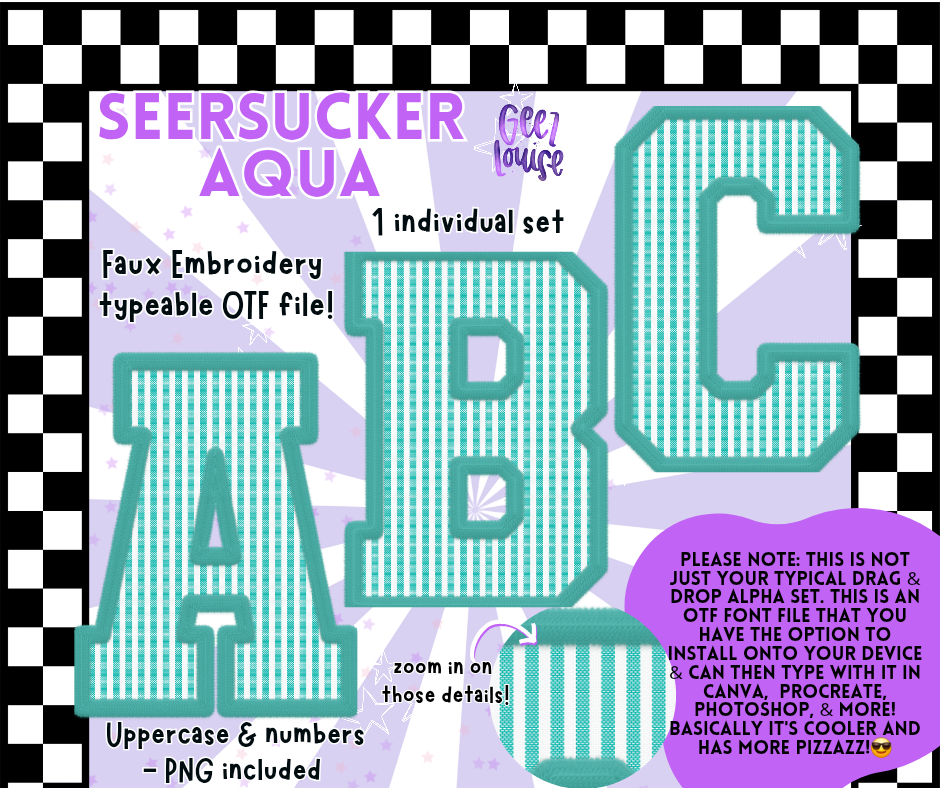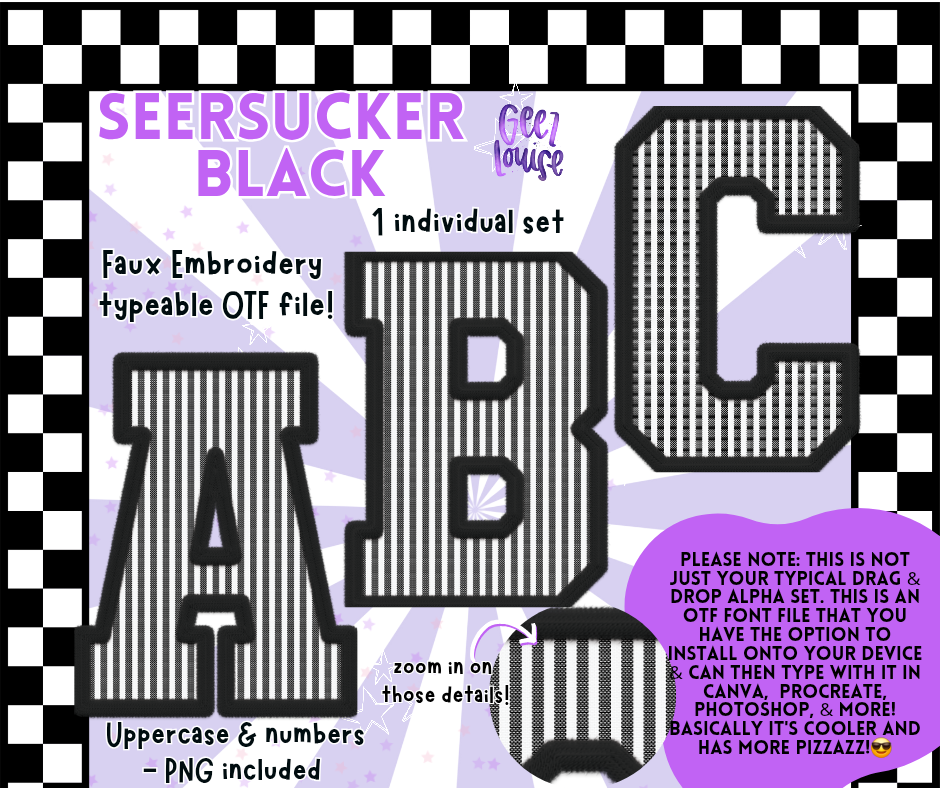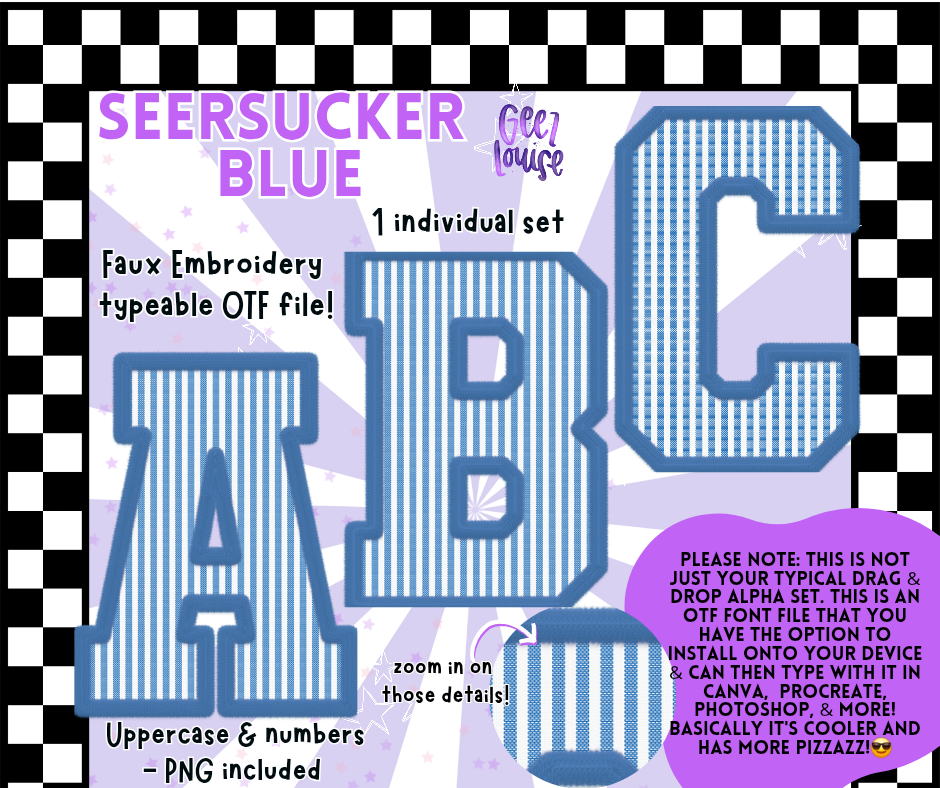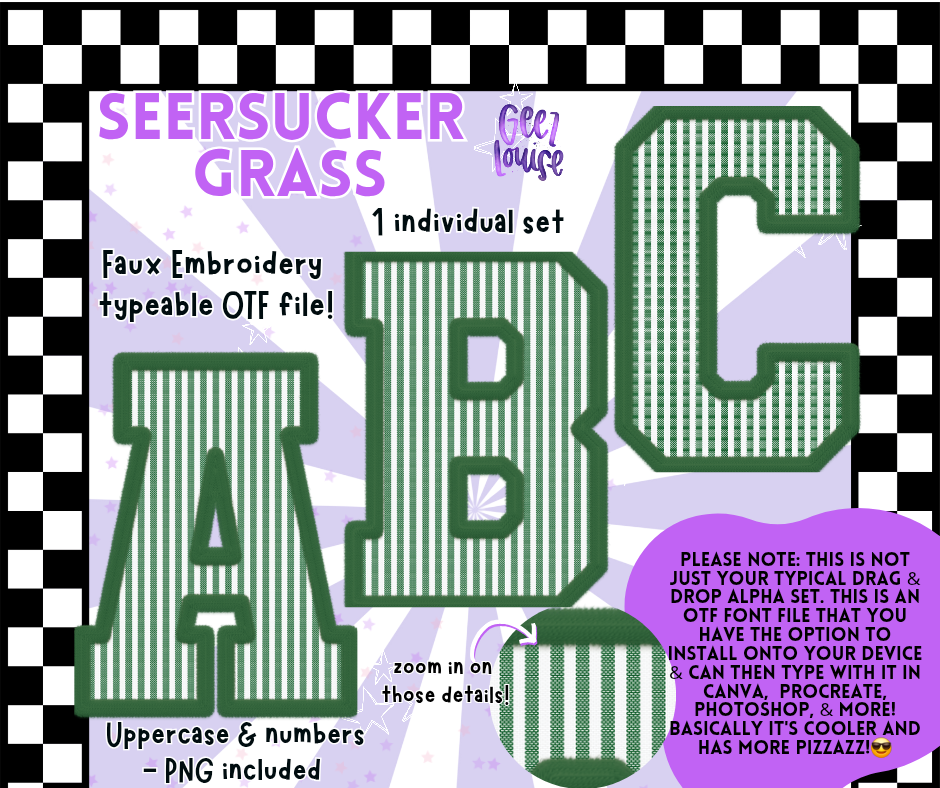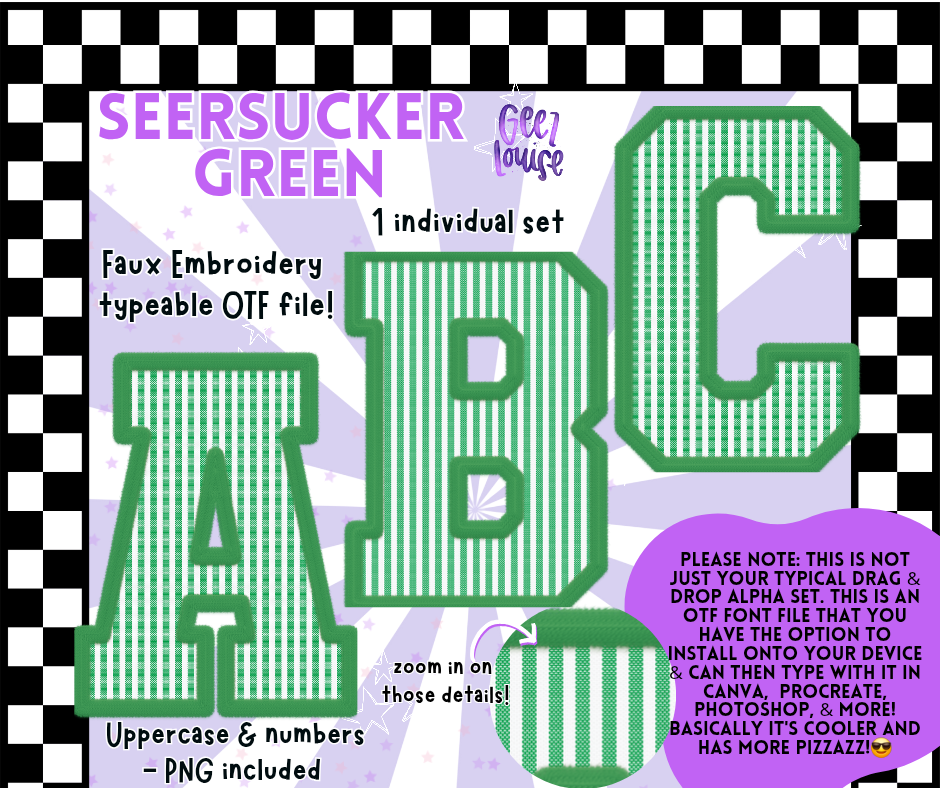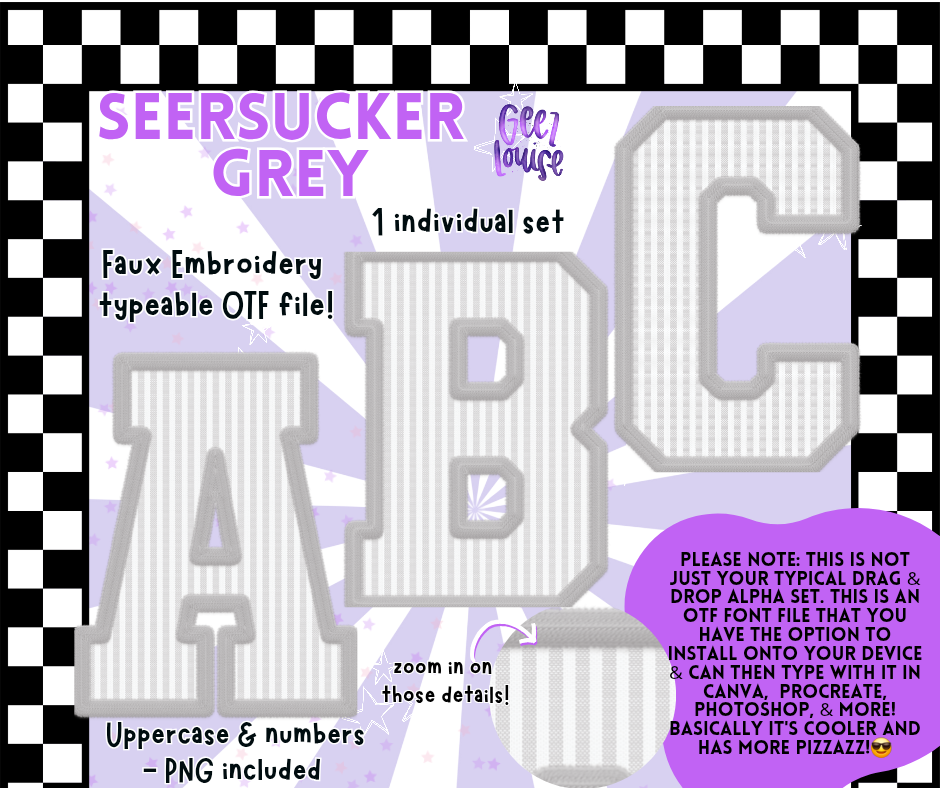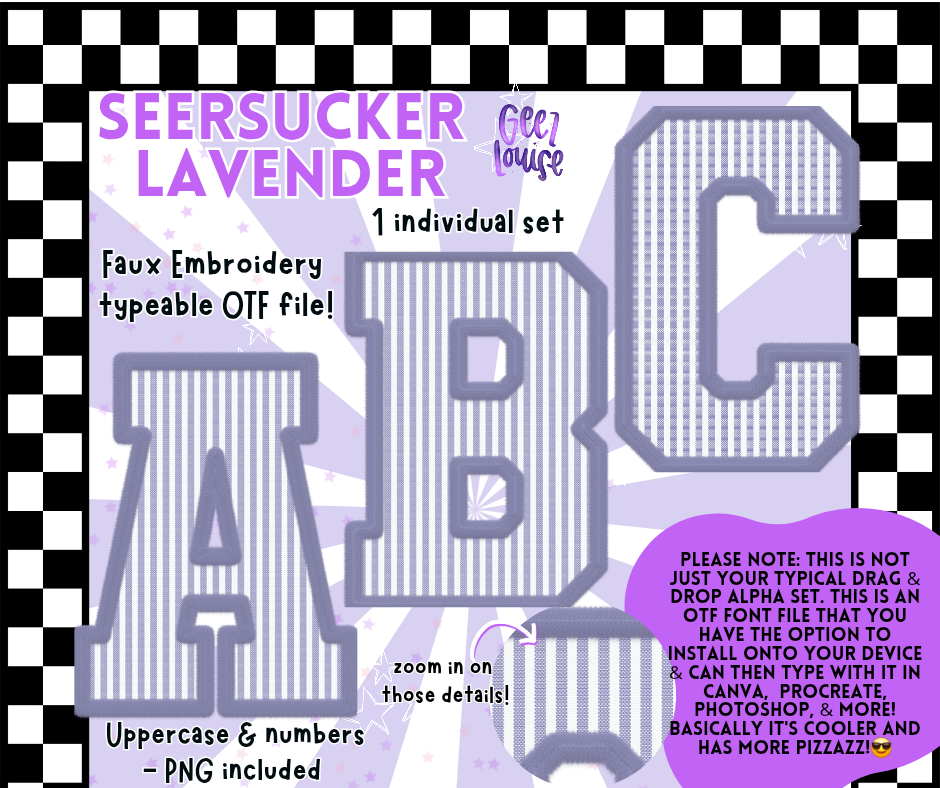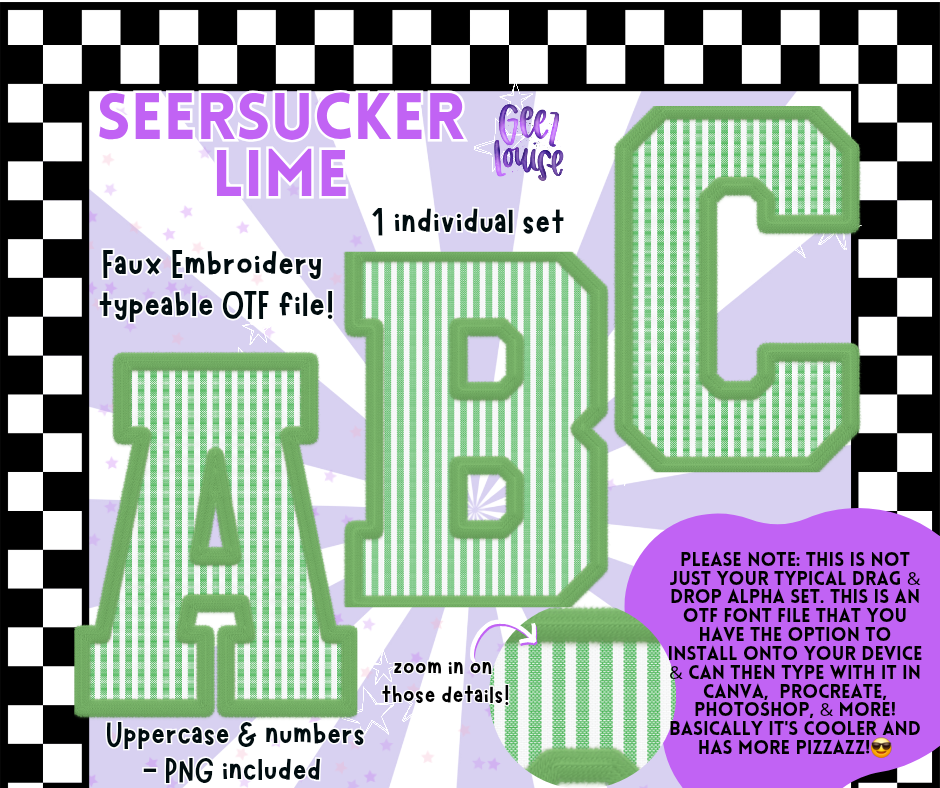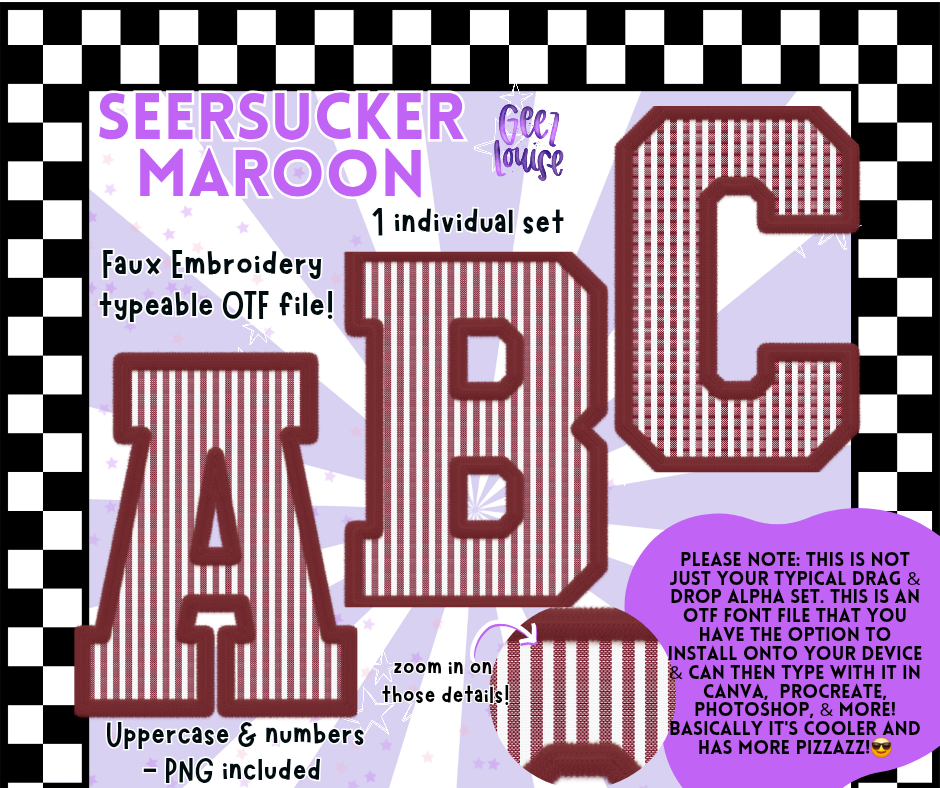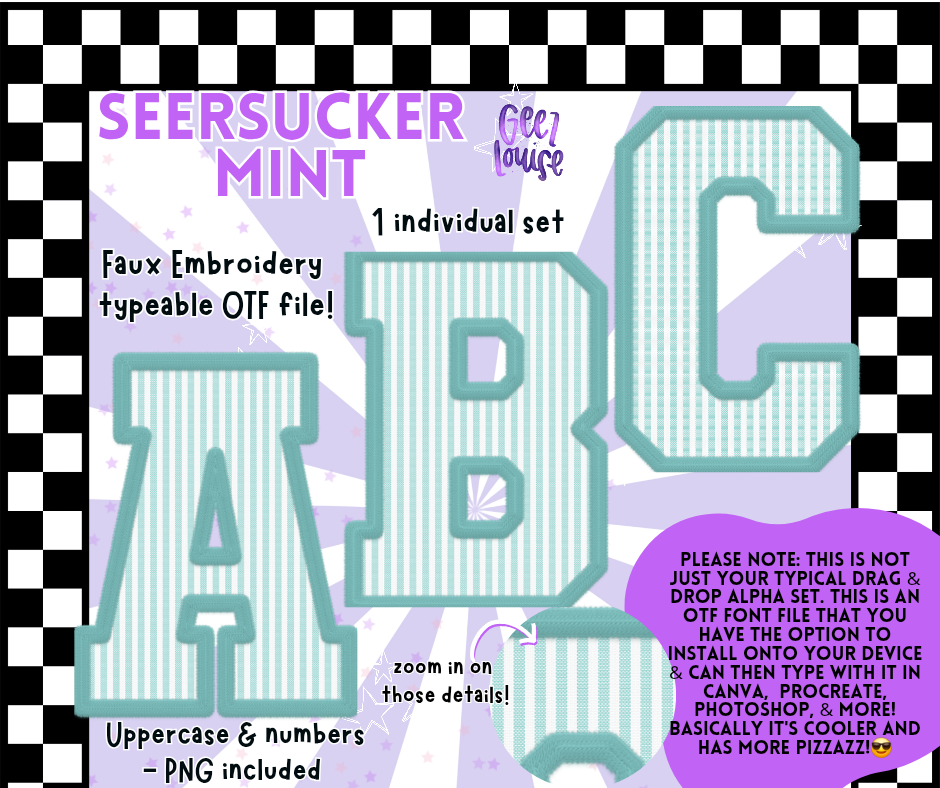
Seersucker Faux Embroidery Alpha – 17 Colors | OTF Font + PNG
Bring back that classic preppy charm—with a twist! The Seersucker Faux Embroidery Alpha set is packed with that crisp, stitched look you love—now in 17 color options to match your every mood or team color.
🎀 Faux embroidery look
🎨 Choose from 17 seersucker colors